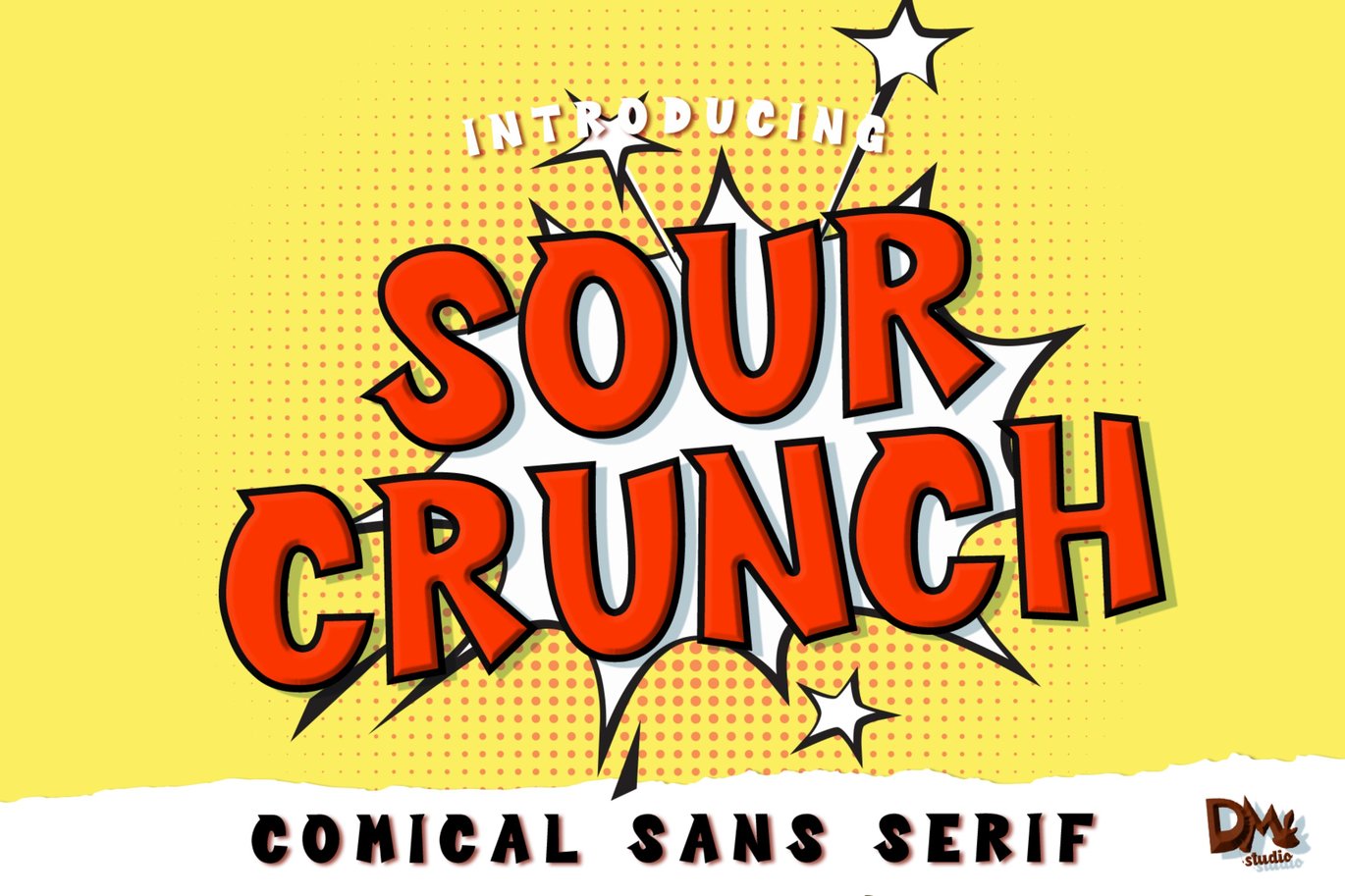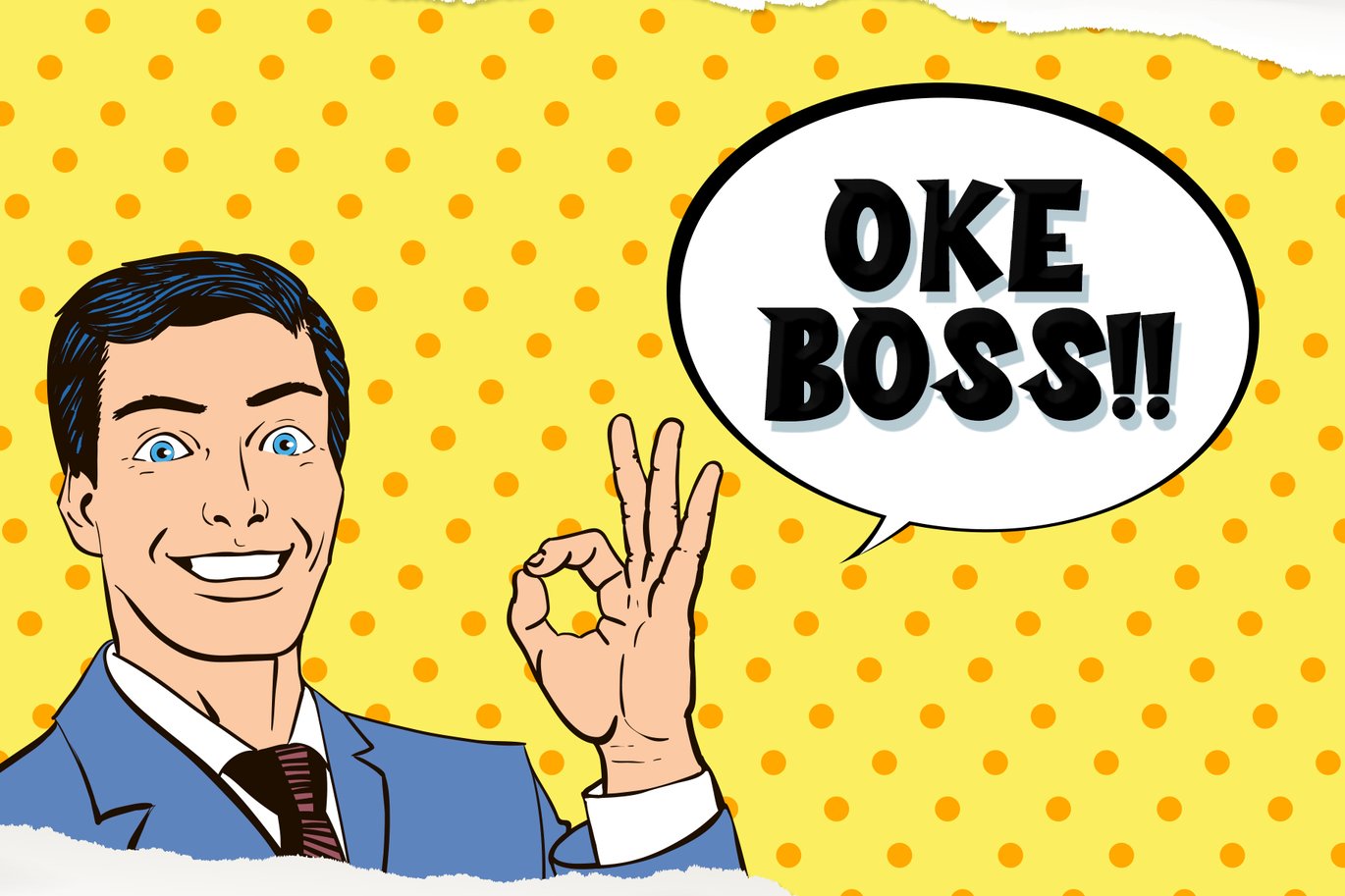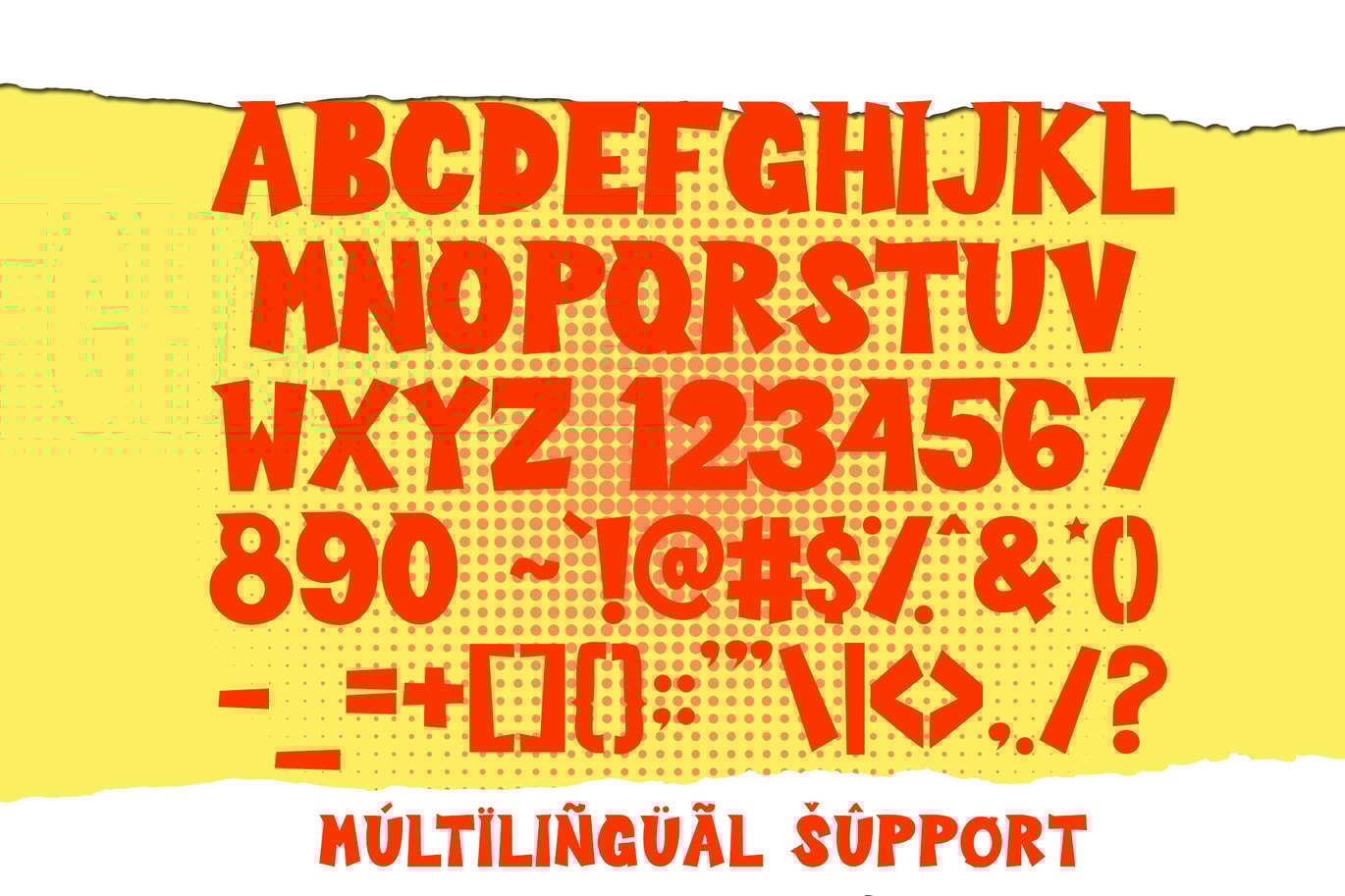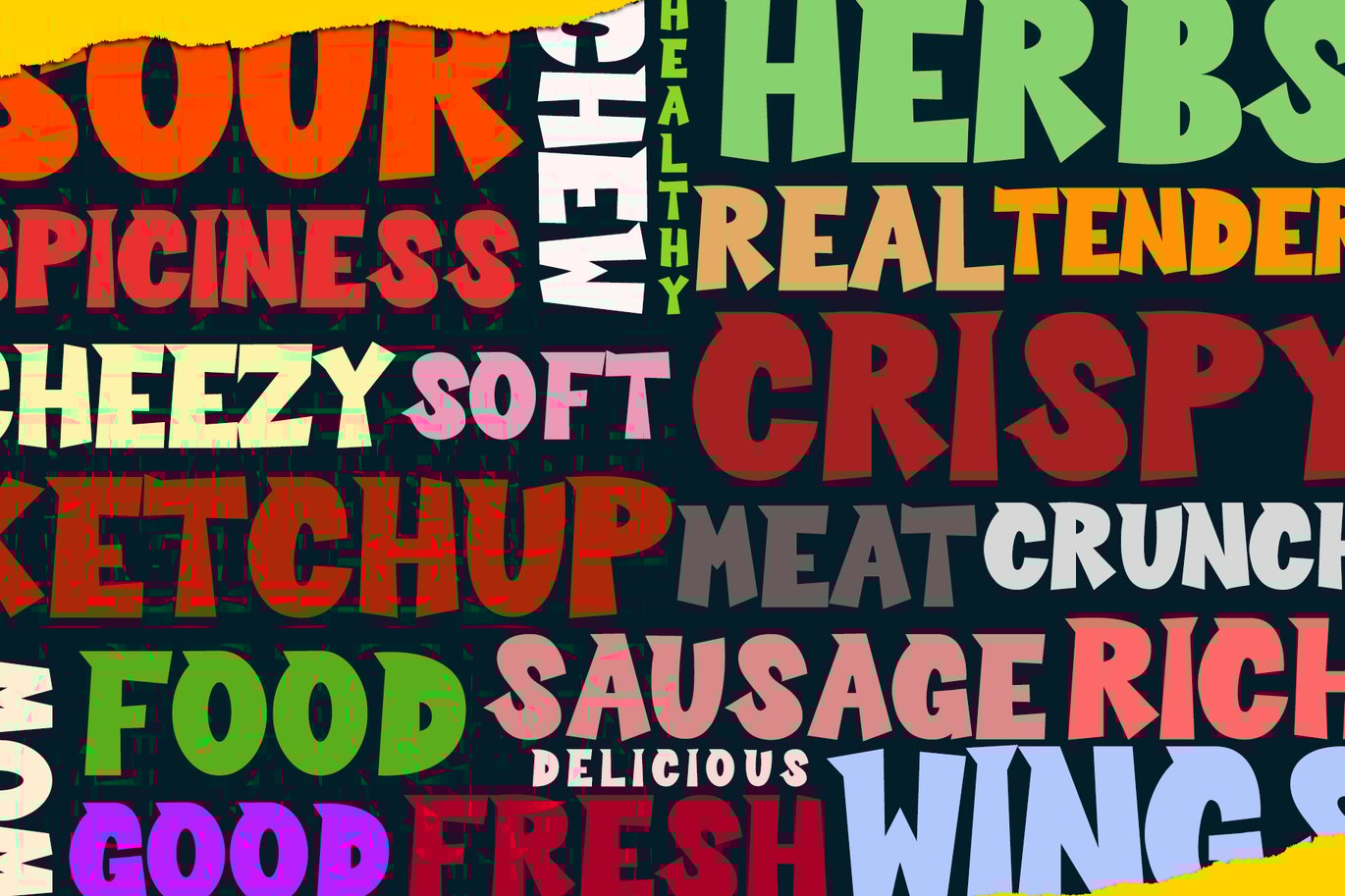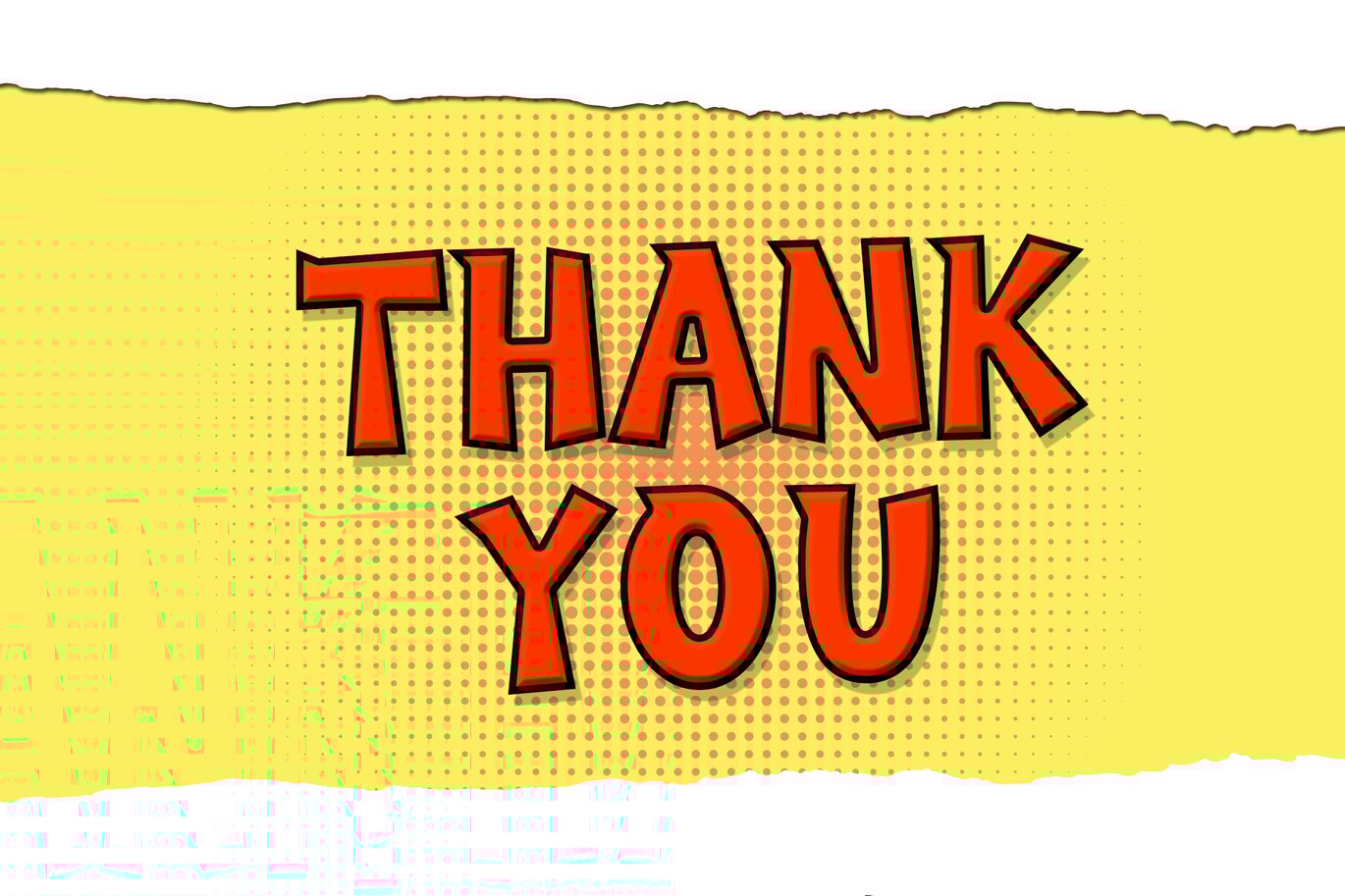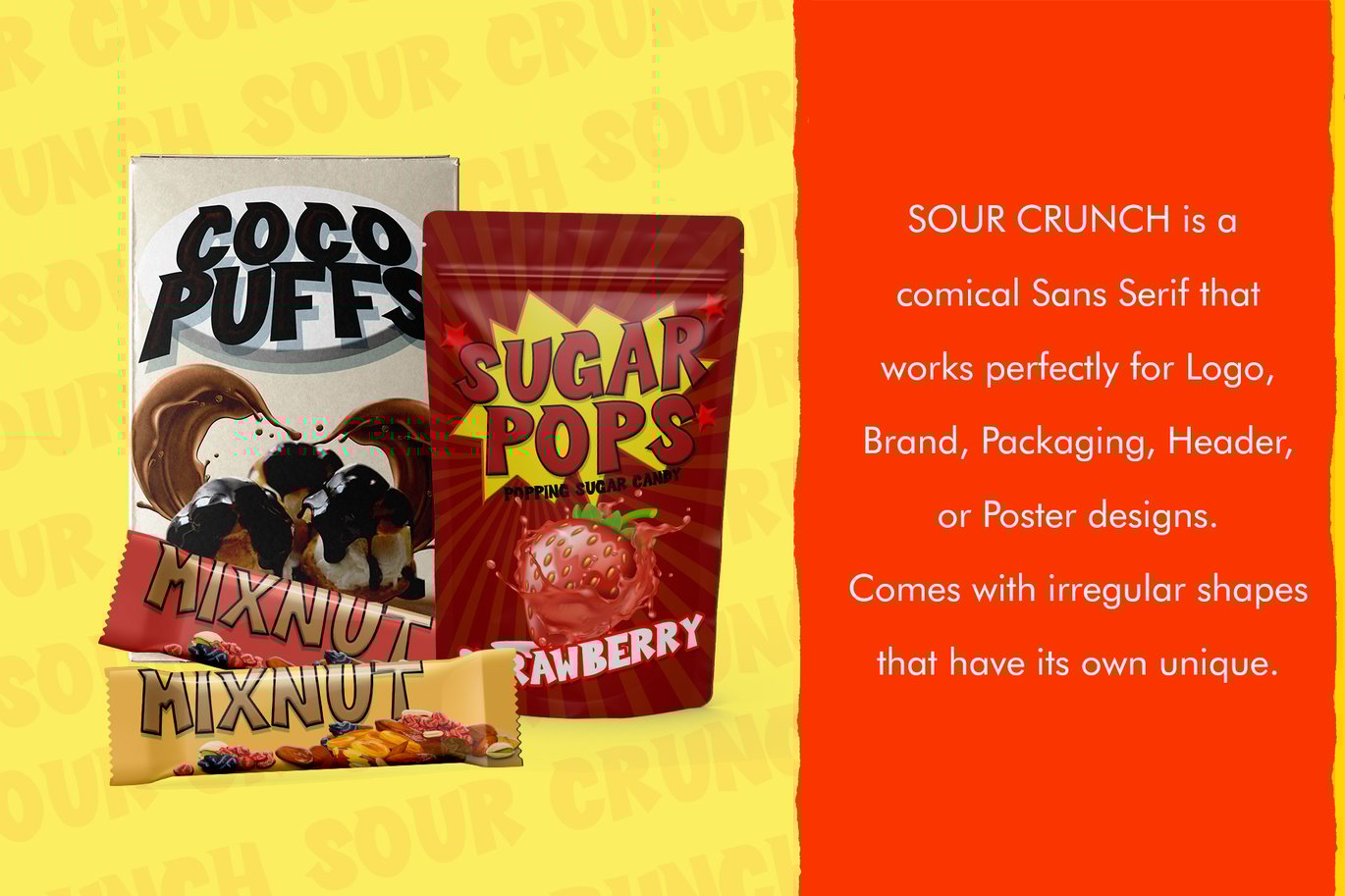
Sour Crunch – Comical Font
Introducing, it’s Sour Crunch!
It’s a ‘crunchy’ comical sans serif, inspired by pop art style comic
font. Comes with irregular shapes that has its own unique !
Good choice for any project purpose, for
creating logo, packaging, posters, headers, wall arts, cafe banner,
t-shirt design, advertisements, kids stuff, social media posts and much
more!
Sour Crunch feature :
-All in CAPS with standard character set, including numeric and symbols.
-Multilingual Supports ( Afrikaans, Albanian, Catalan, Danish, Dutch,
English, Estonian, Finnish, French, German, Italian, Norwegian,
Portugese, Spanisch, Swedish, Zulu )